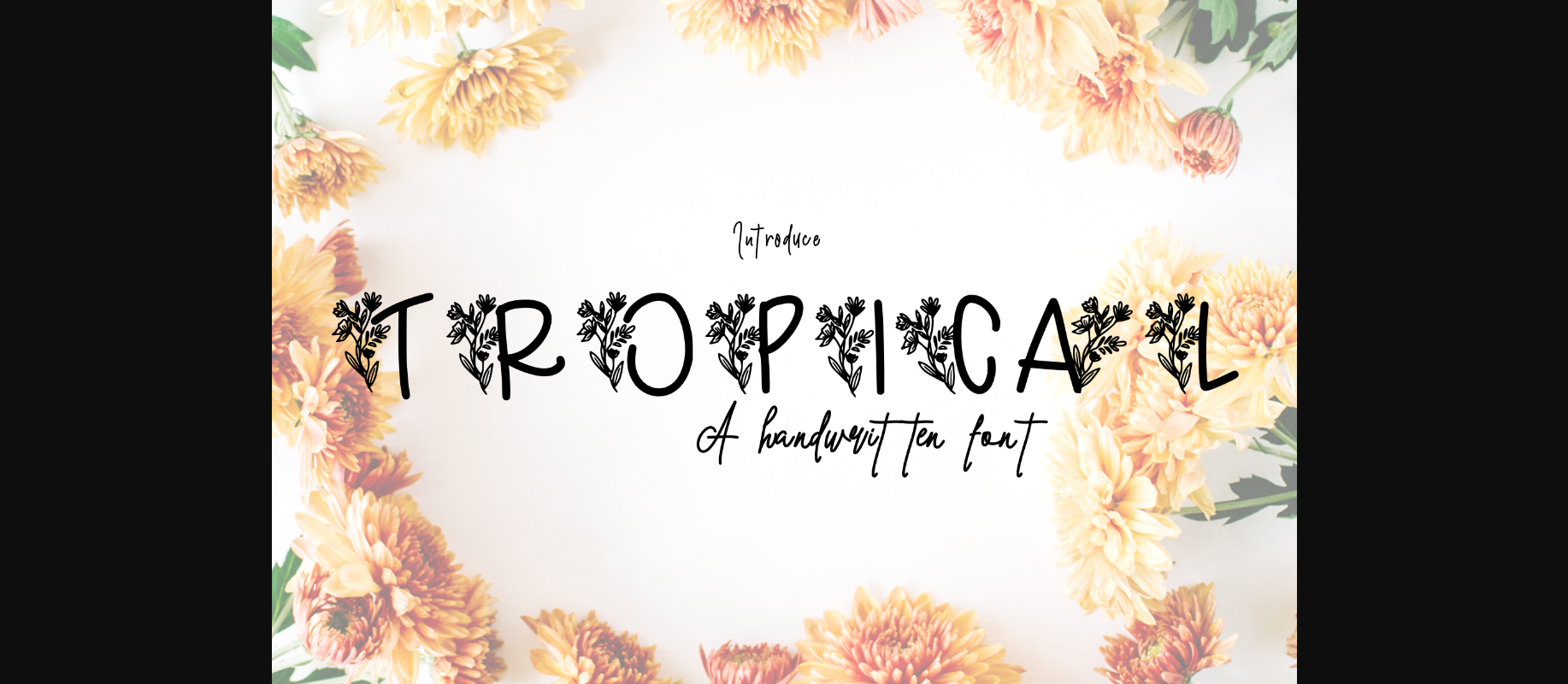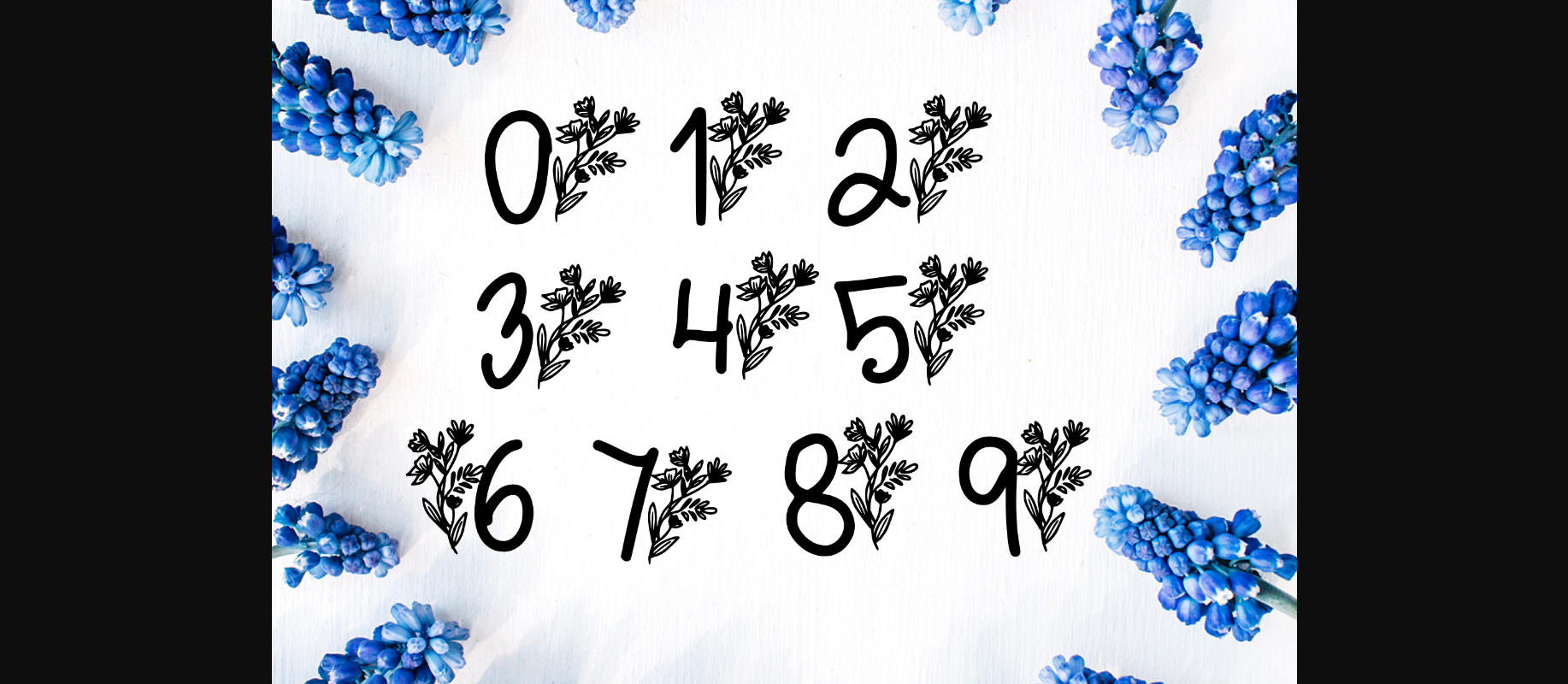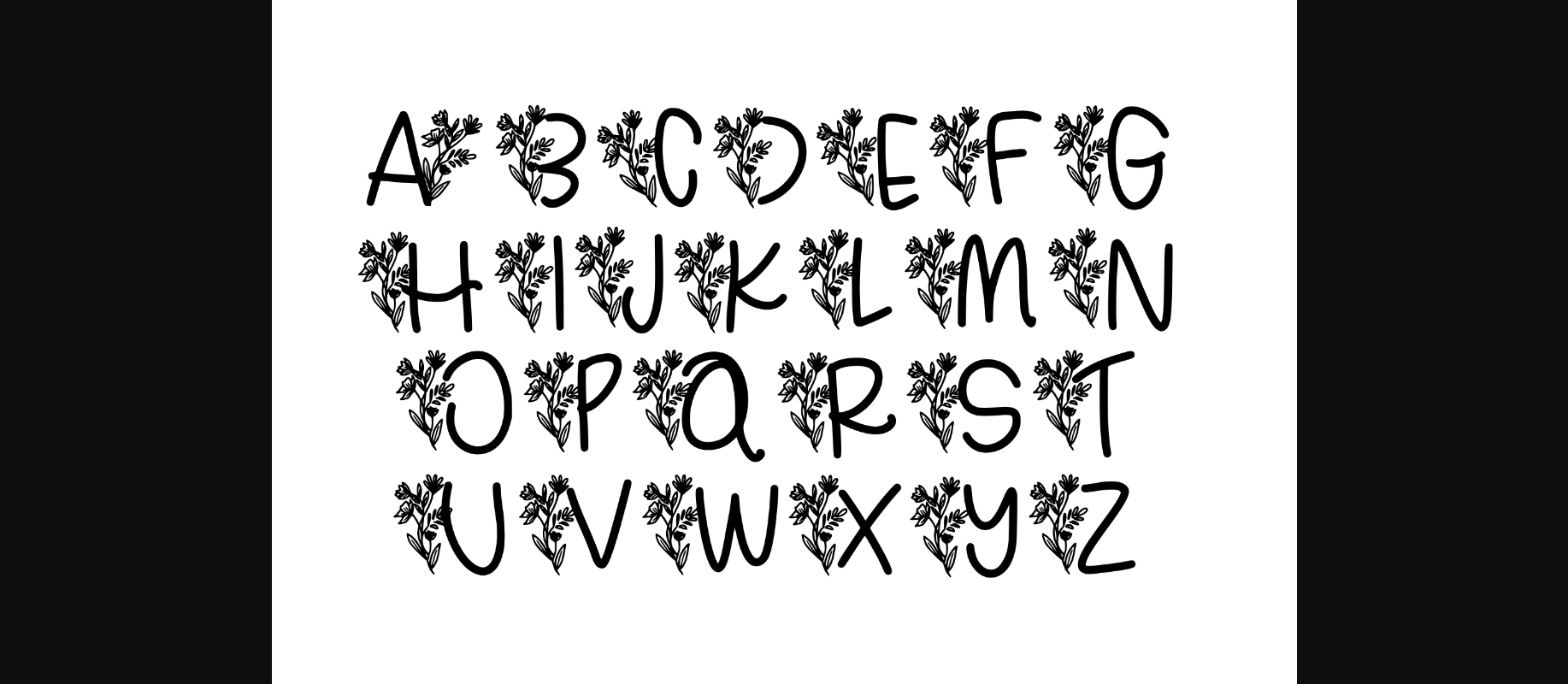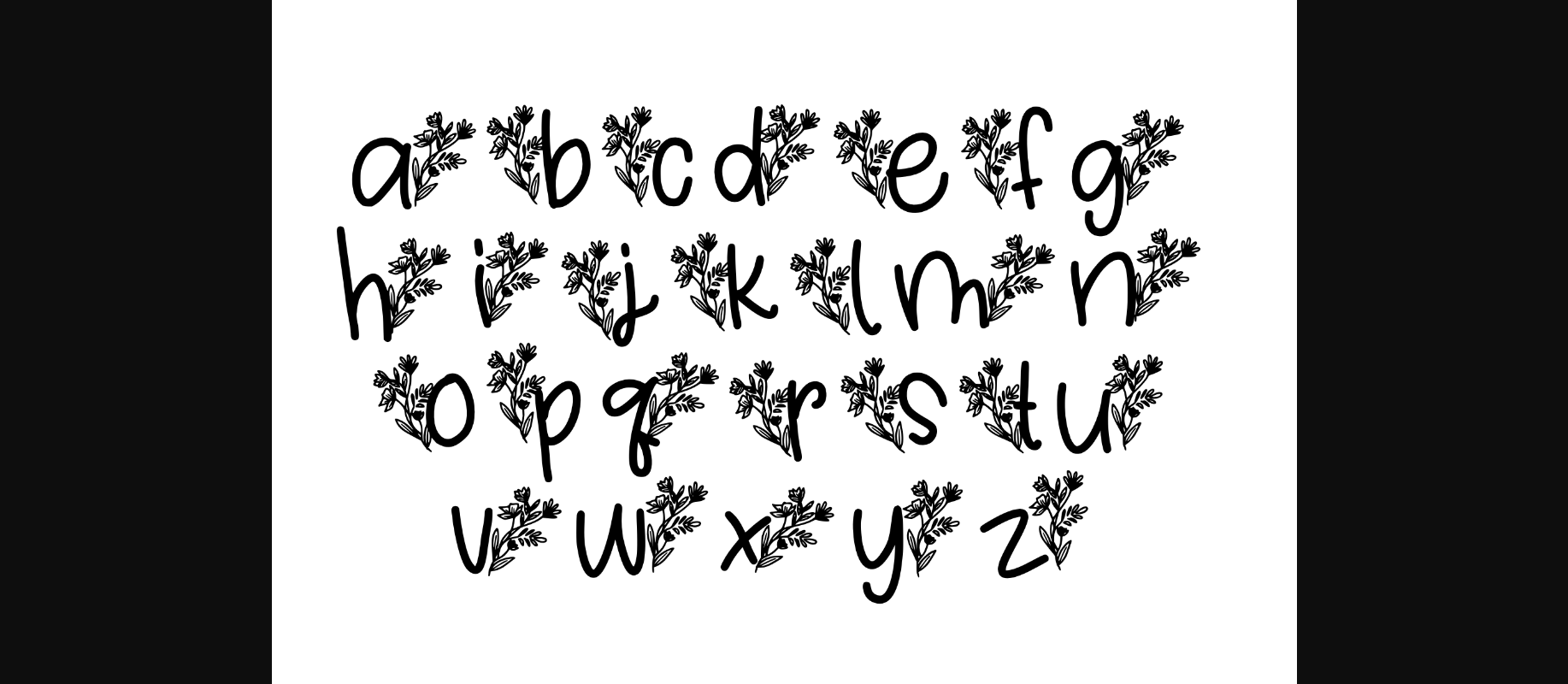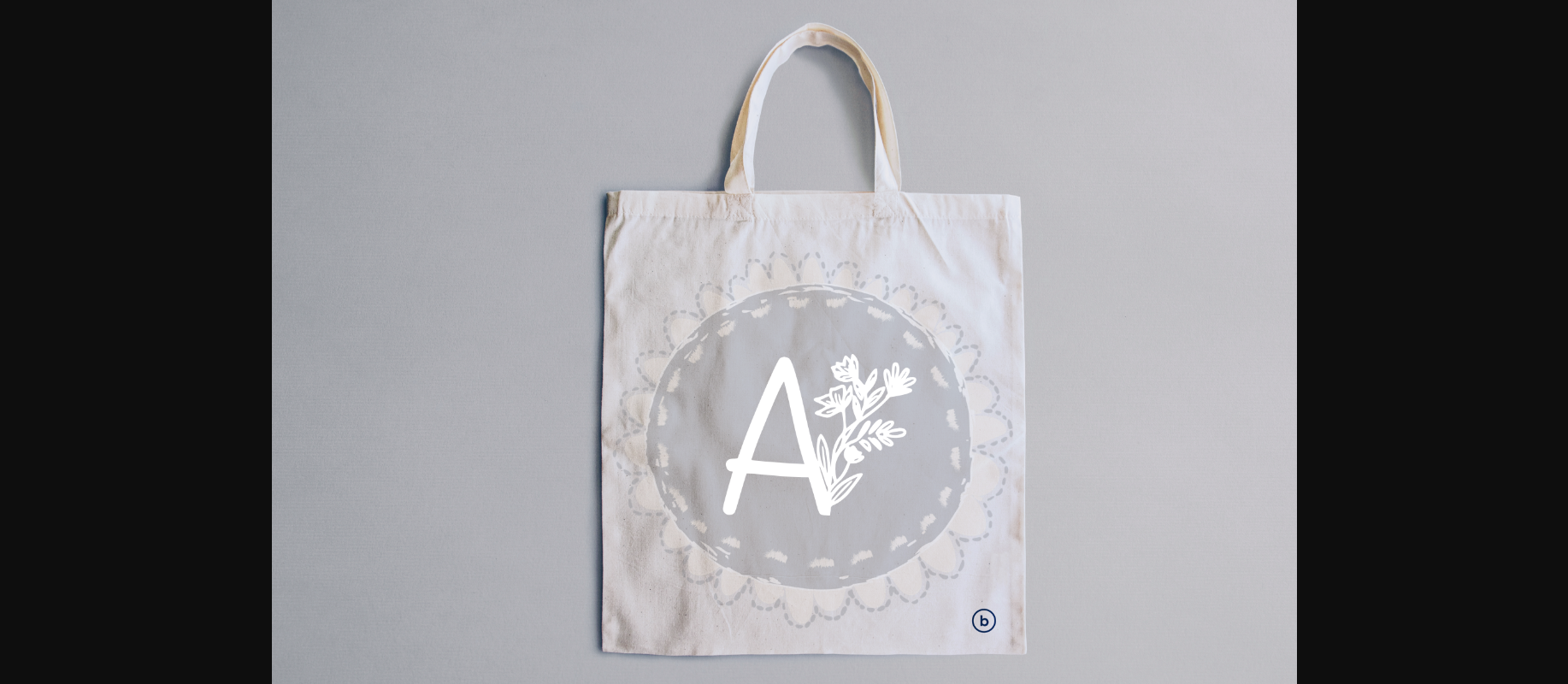
Tropical Font
About Tropical Font
Tropical is a lovely and delicate decorative font, featuring flower ornaments. Get inspired by its distinct style and use it to create spectacular designs!